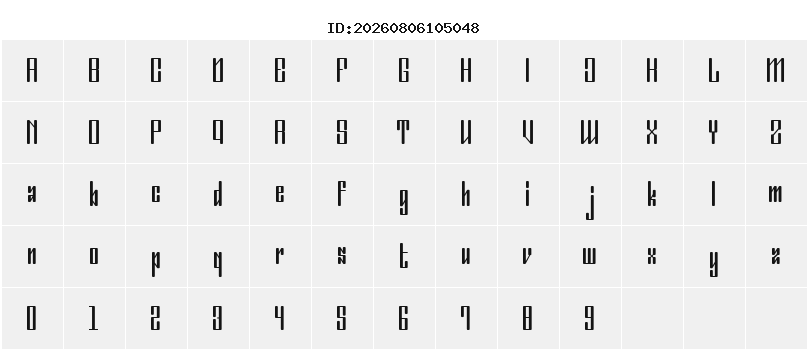
Ordinatum Light Preview
• Font Name: Ordinatum Light
• Full Font Name: Ordinatum Light
• PostScript Name: OrdinatumLight
• Designer: Måns Grebäck
• Manufacturer: Måns Grebäck
About Ordinatum Light.ttf
Ordinatum Light.ttf is a modern, elegant sans-serif font designed for ultimate readability and visual harmony. Perfect for branding, headlines, web design, and print materials.